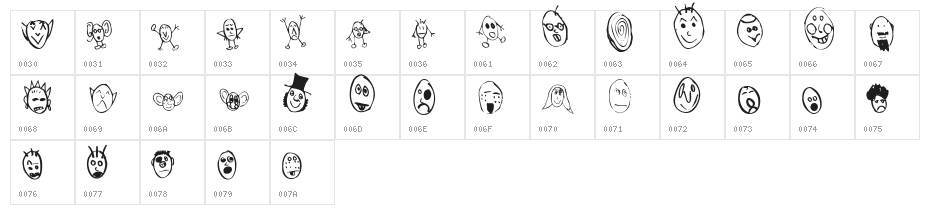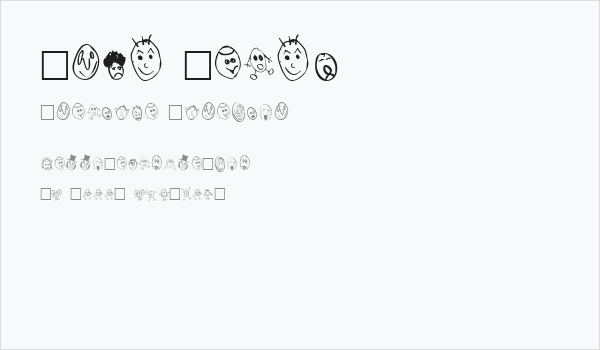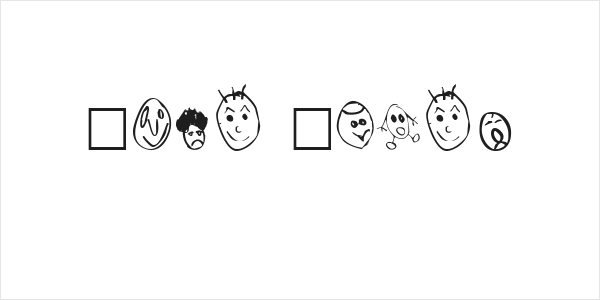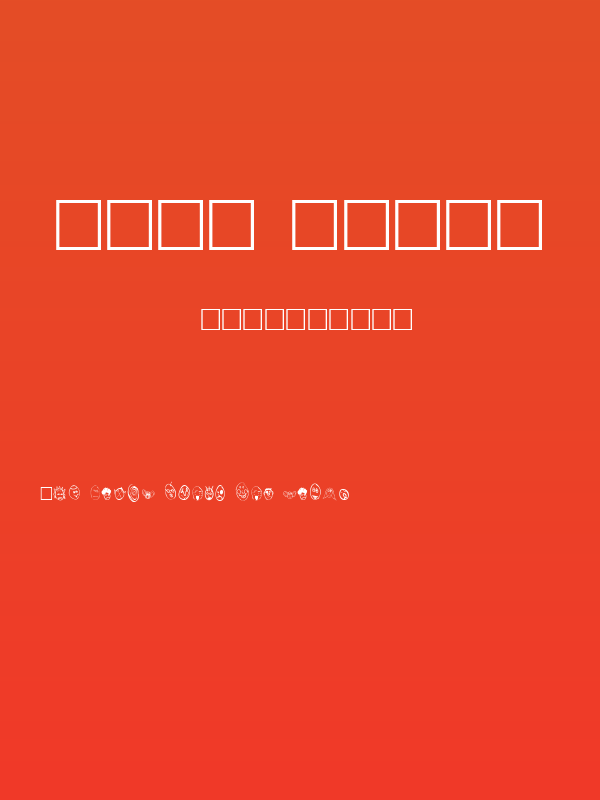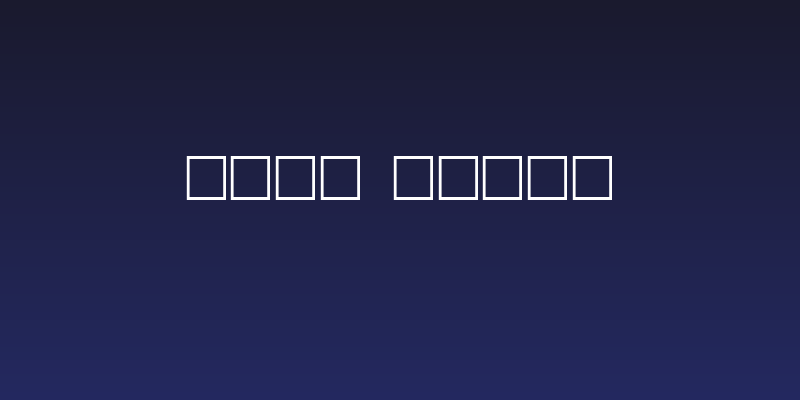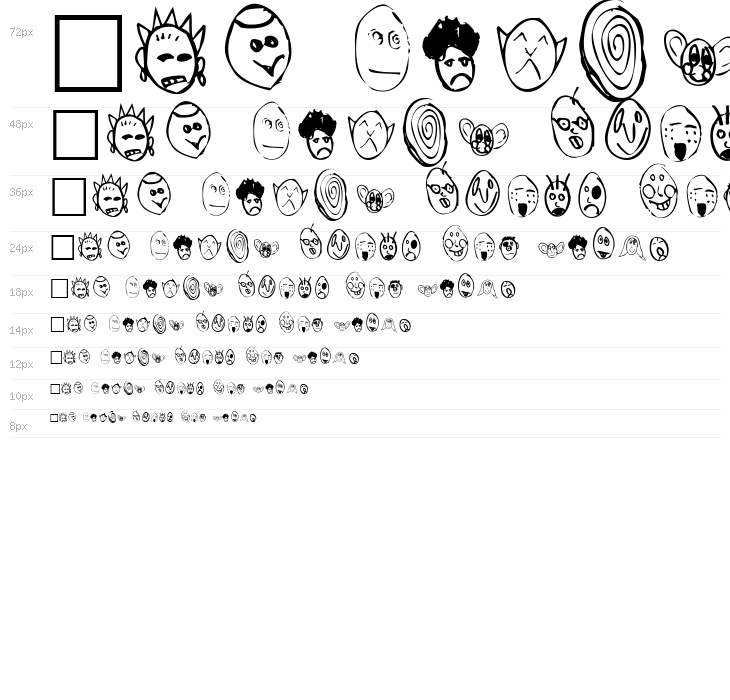
Crud Heads Font
Crud Heads Description
A playful, hand-drawn decorative font featuring quirky, cartoonish faces and characters in place of traditional letterforms. Each glyph is a unique doodle with expressive features, giving the font a whimsical and informal appearance.
| Overall Style | Playful, Whimsical, Decorative |
| Use Case | Headlines, Logos, Posters, ChildrenΓ’β¬β’s materials |
| Proposed Projects | ChildrenΓ’β¬β’s books, party invitations, comic strips, playful branding, greeting cards, educational materials. |